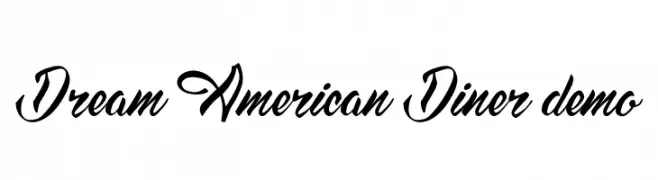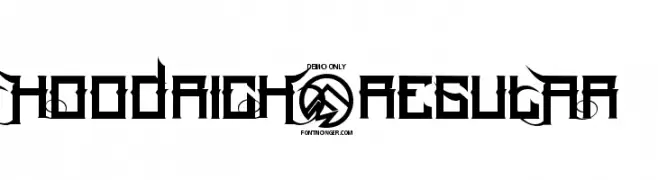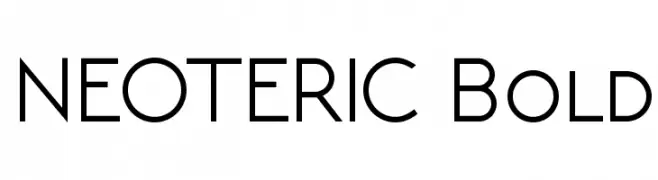
A bold, modern font with geometric and futuristic elements.
A bold, cursive font with high contrast and dramatic flourishes.
A bold, italic, and futuristic font with sharp angles and a dynamic style.
A bold, flowing script font with vintage American diner charm.
A modern, geometric sans-serif font with uniform line thickness.
A modern, geometric sans-serif font with clean lines and balanced proportions.
A bold, angular font with sharp edges and a geometric style.
A bold, angular font with sharp edges and a modern, geometric style.